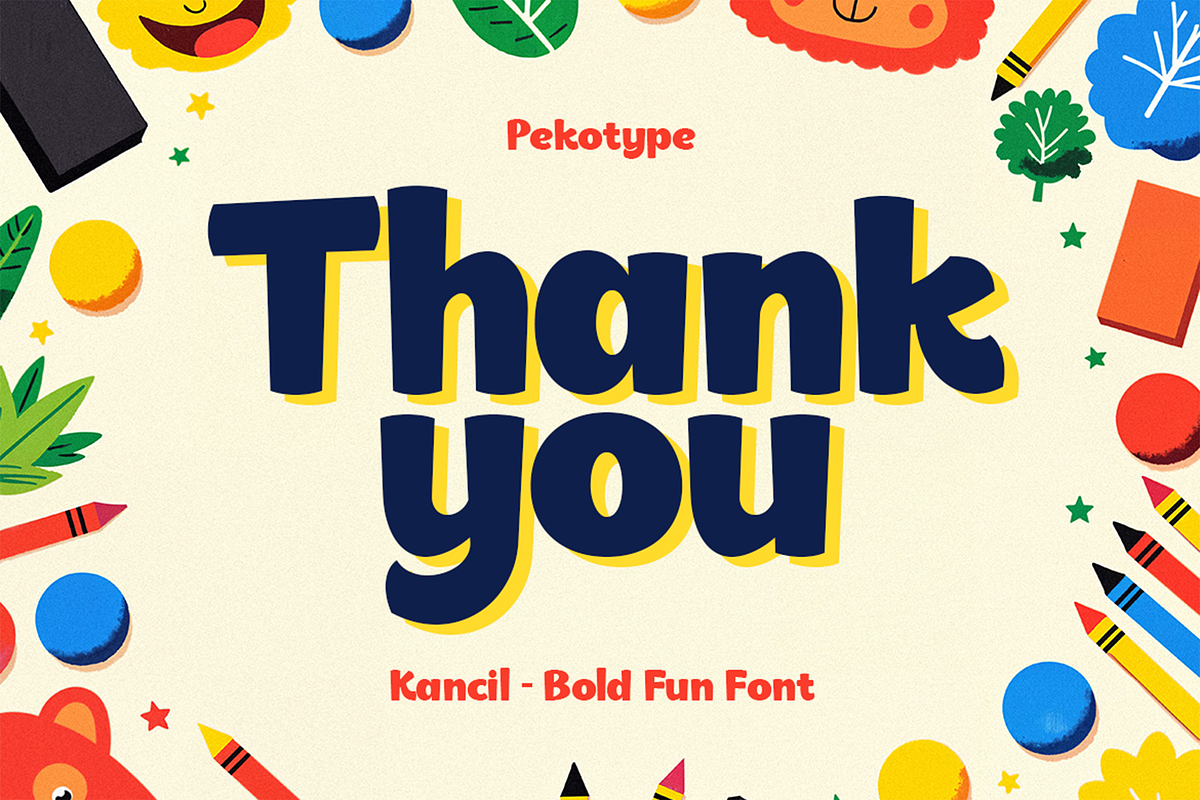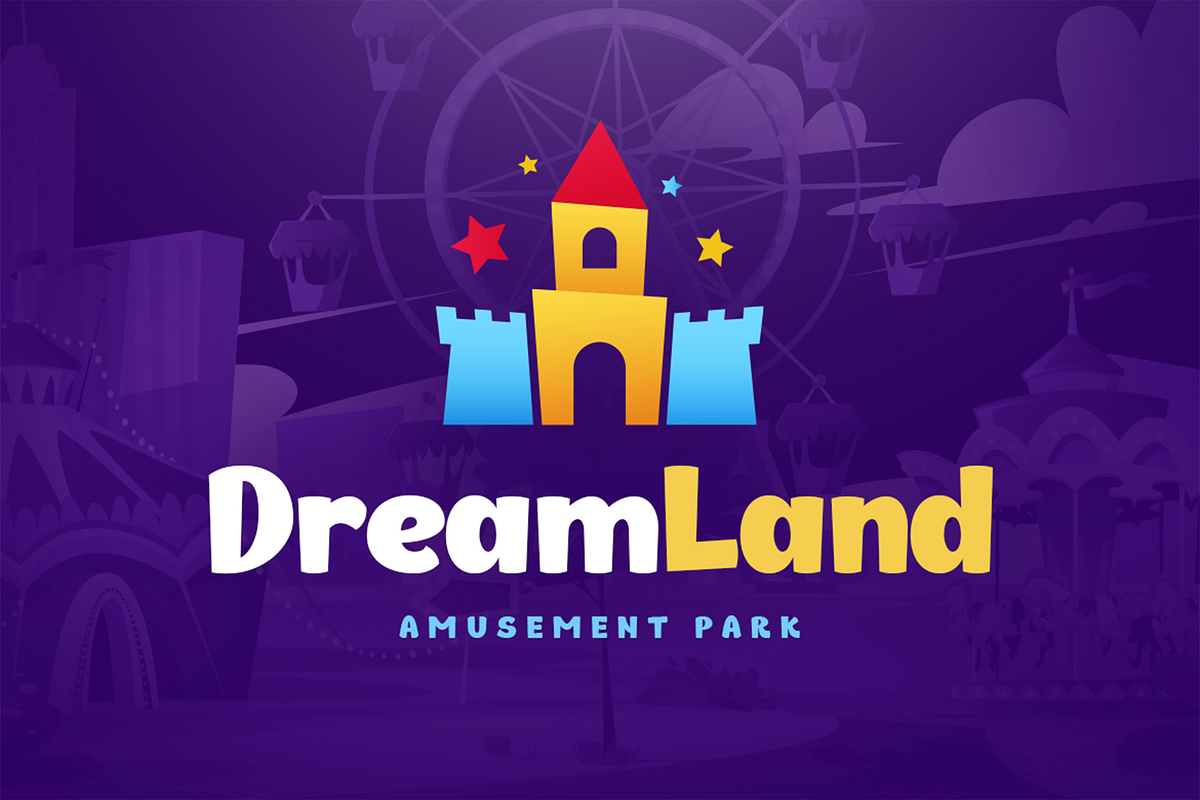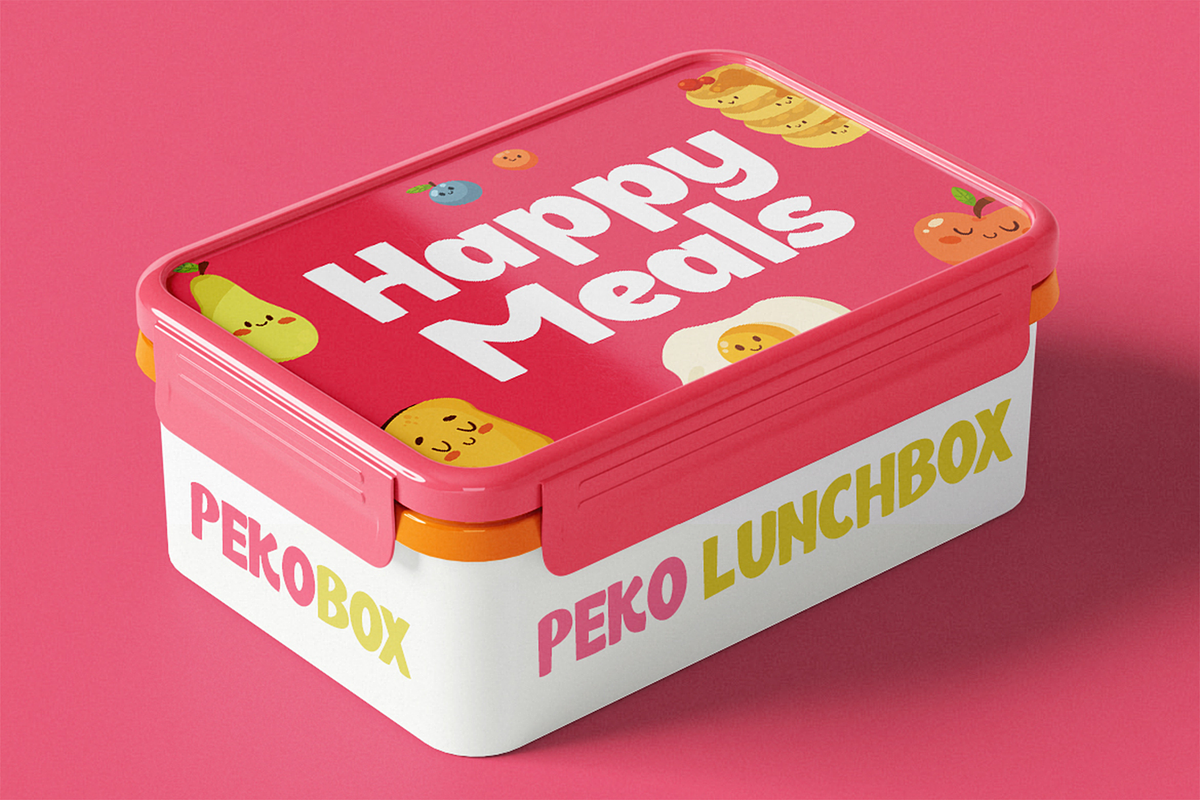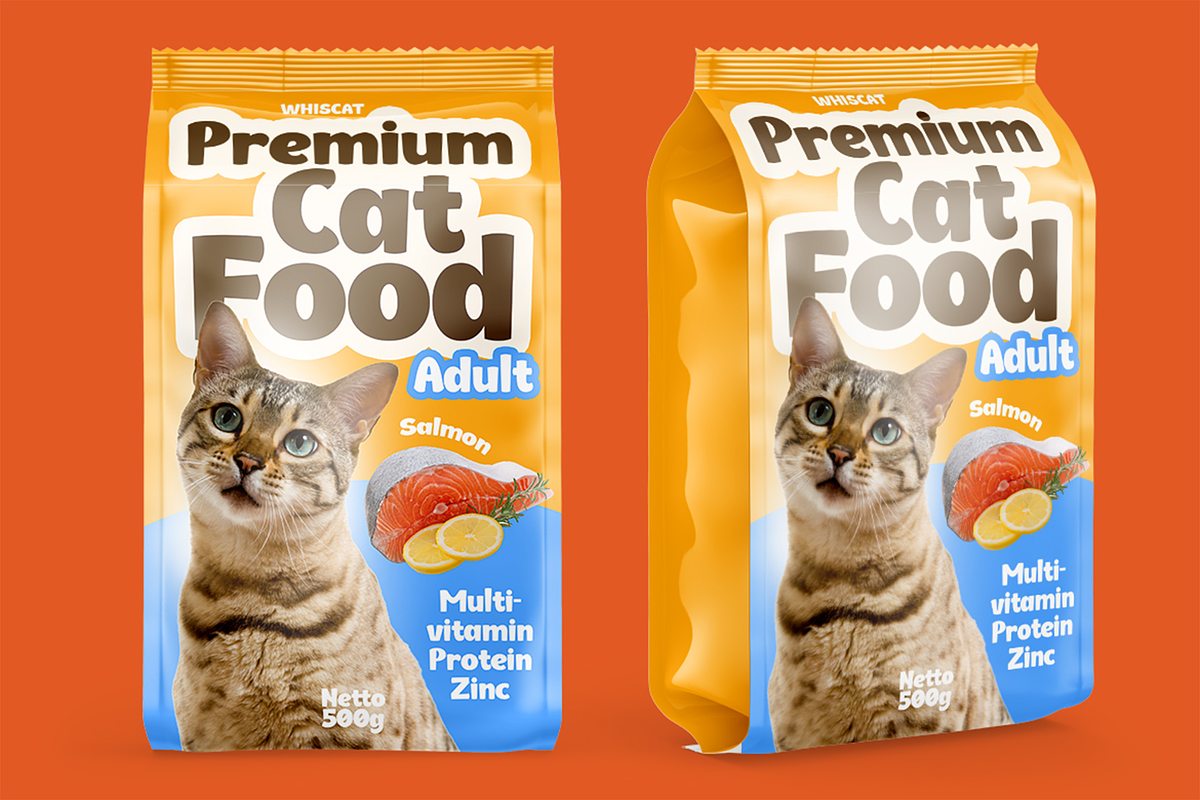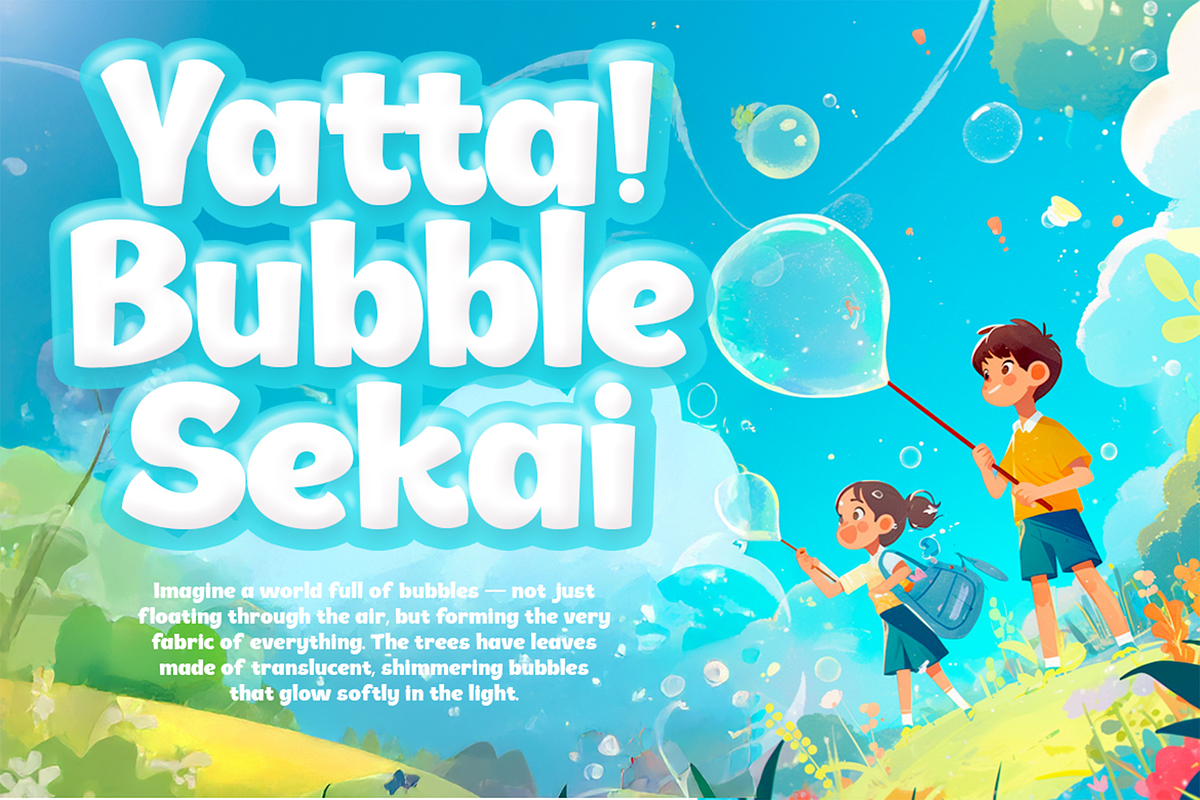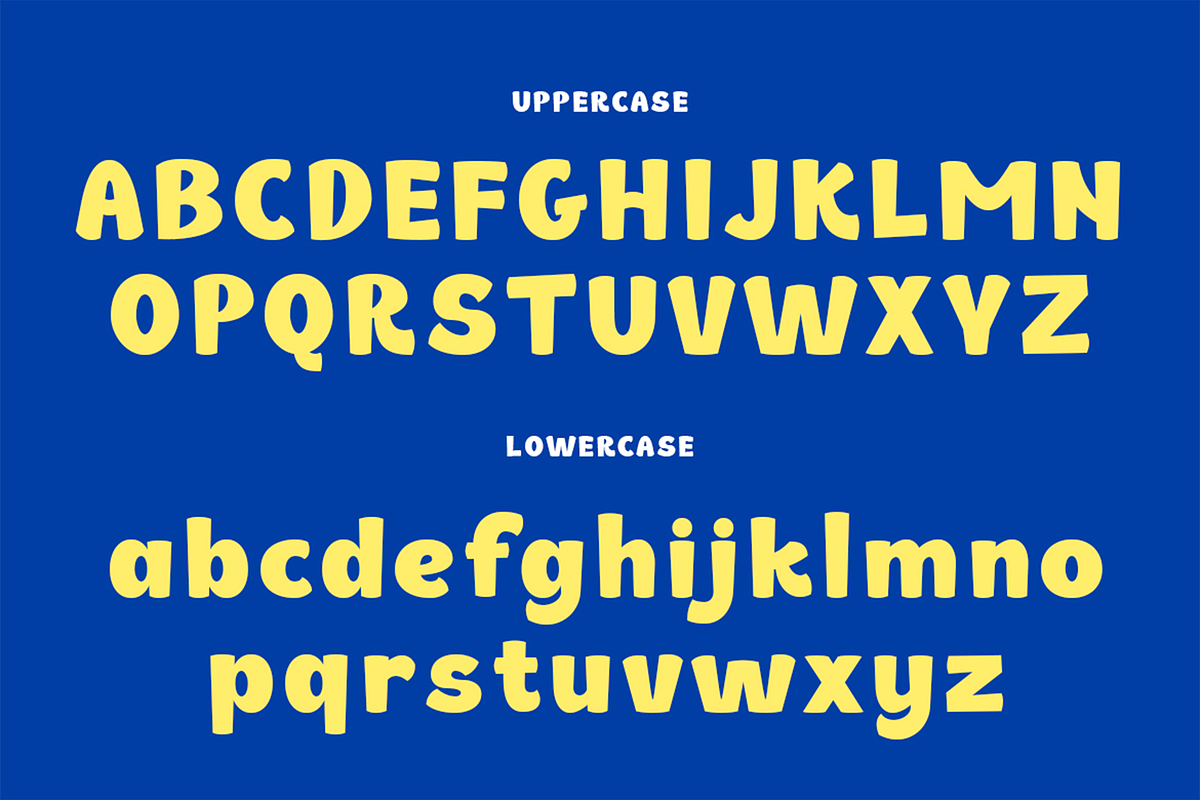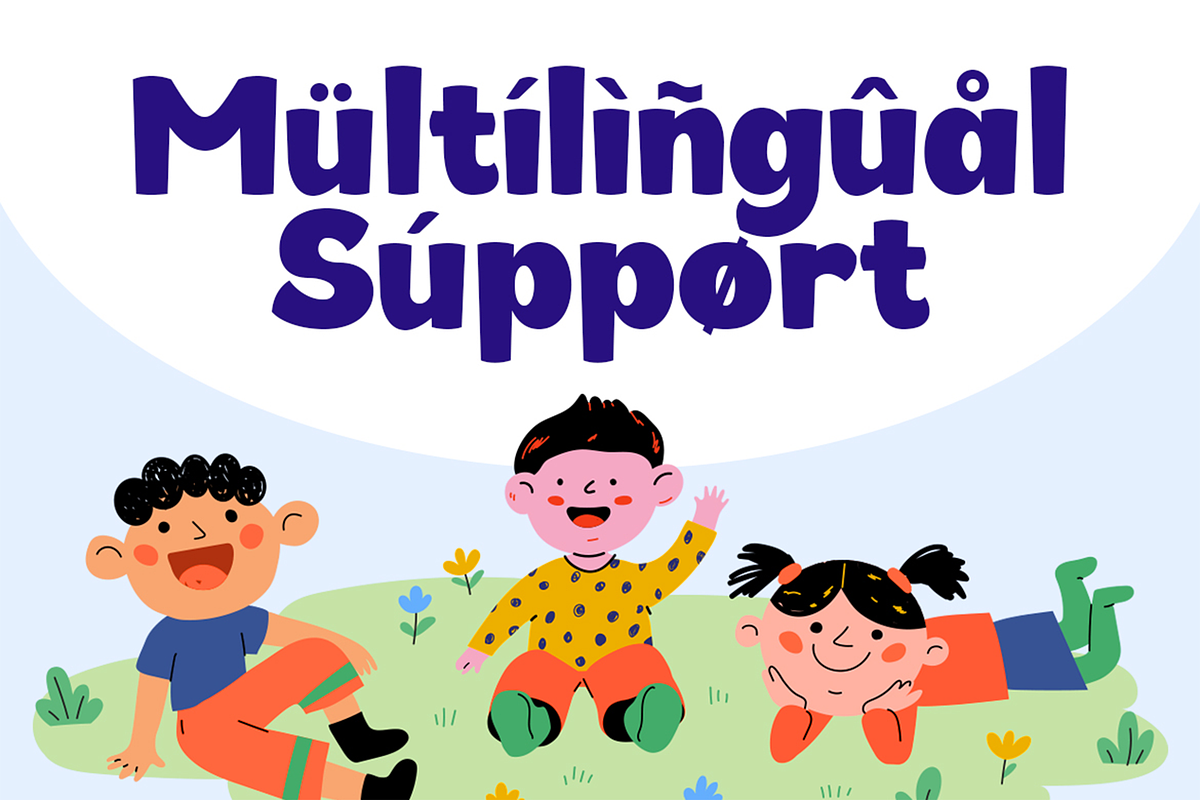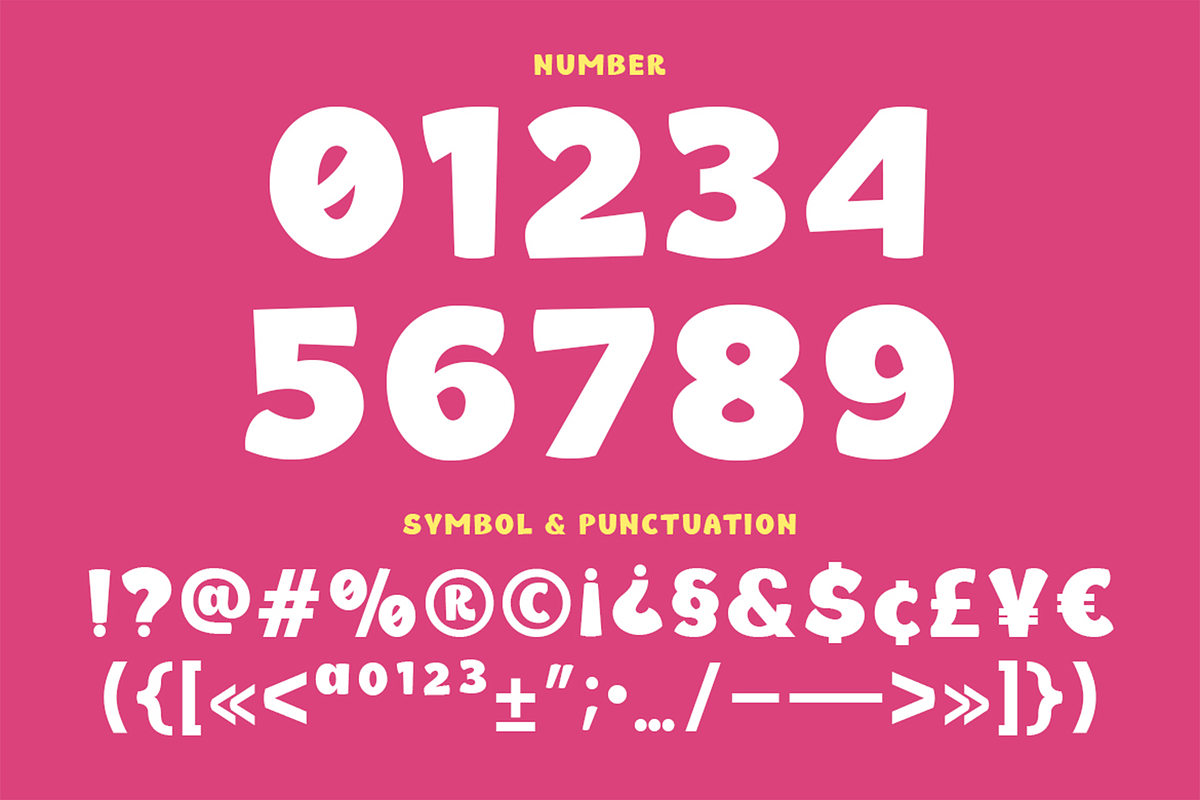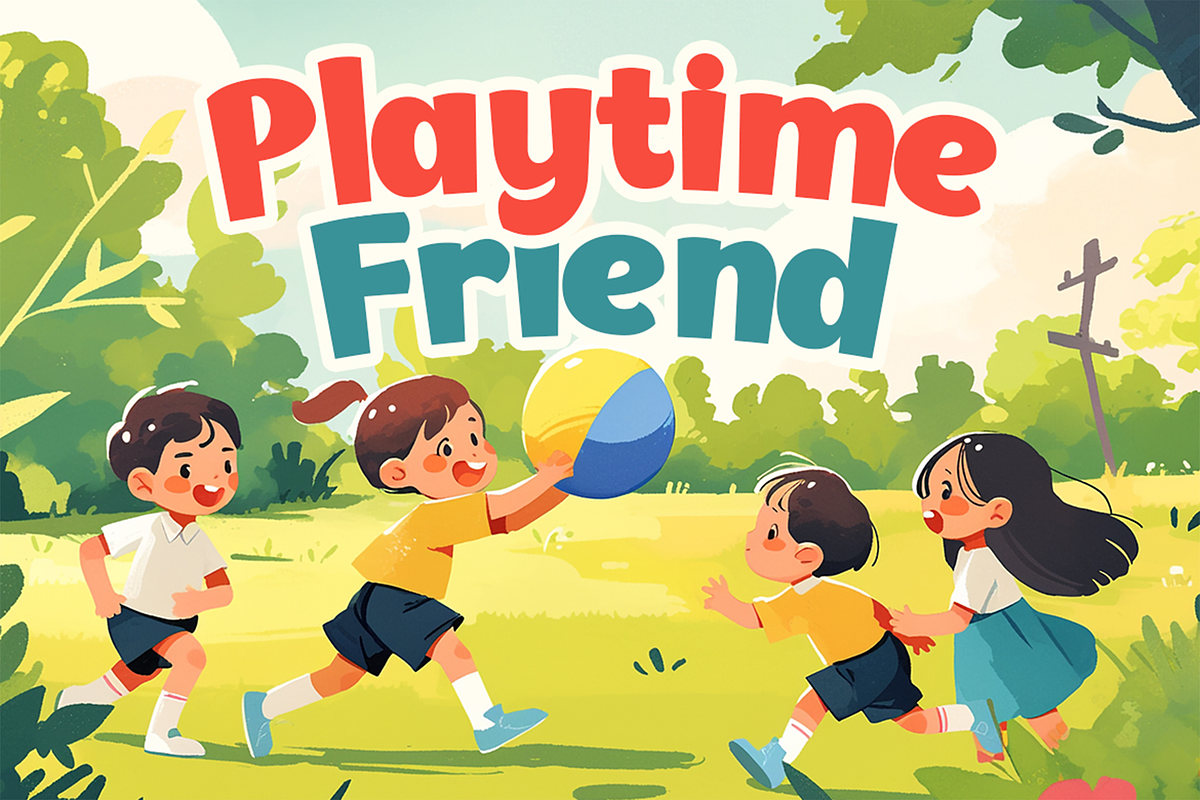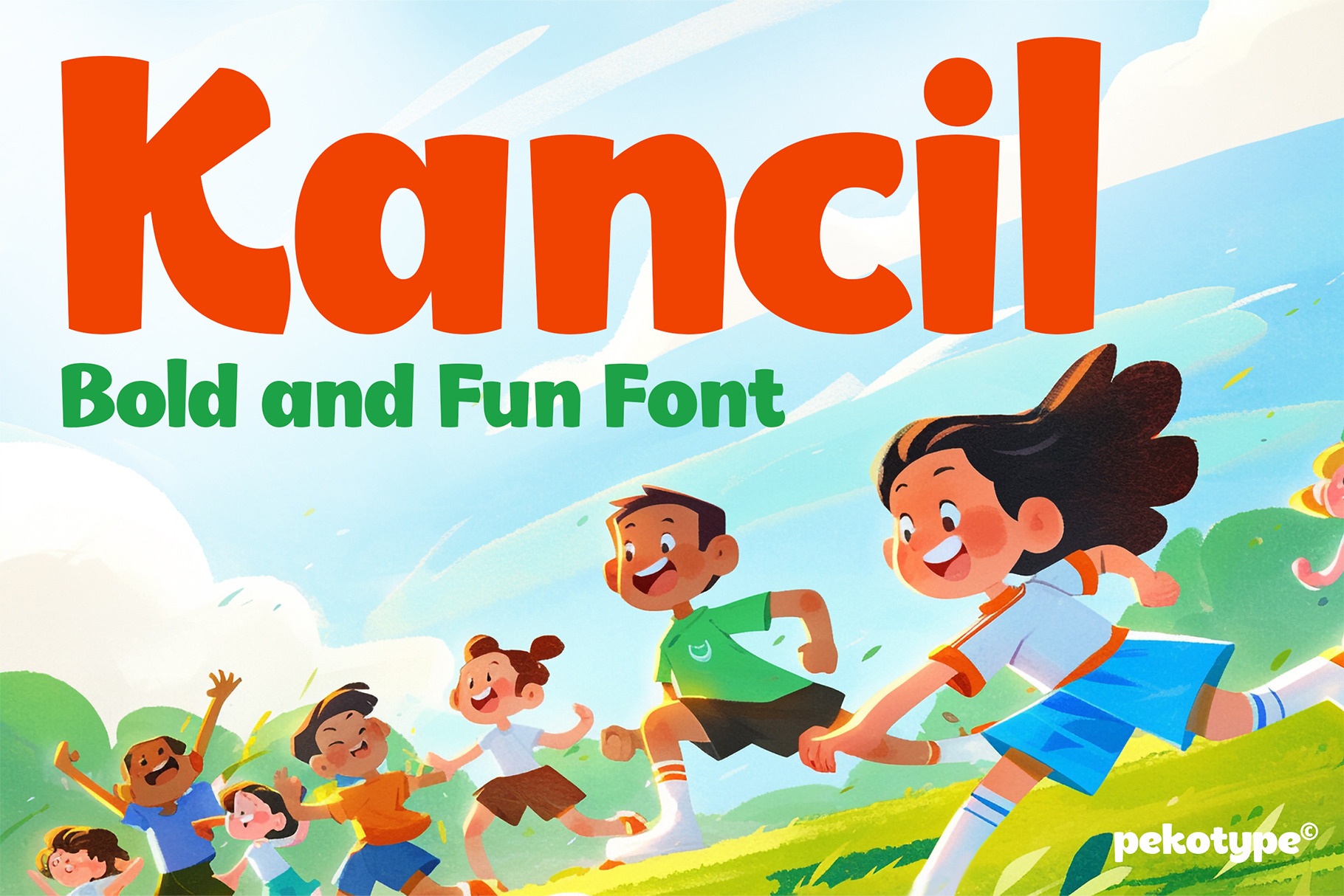
Kancil - Bold and Fun Font
KANCIL – Bold & Fun Display Font for Modern Creative Projects
Introducing KANCIL, a bold and playful display font designed to bring energy, character, and versatility to your creative projects. With its fun, modern sans-serif style and eye-catching curves, KANCIL is perfect for designers who want to make a strong visual impact.
Whether you're working on branding, logo design, children’s books, packaging, movie posters, social media graphics, promotional materials, or print media, KANCIL brings a fresh, vibrant look that stands out in any layout. Its multipurpose nature makes it a great choice for both digital and print projects.
KANCIL is more than just a font—it’s a creative companion for bold ideas and playful concepts.
- Number, symbol, & punctuation
- Perfect for headlines, logos, posters, game, and more
- Suitable for all ages and themes
- Easy to use and highly legible